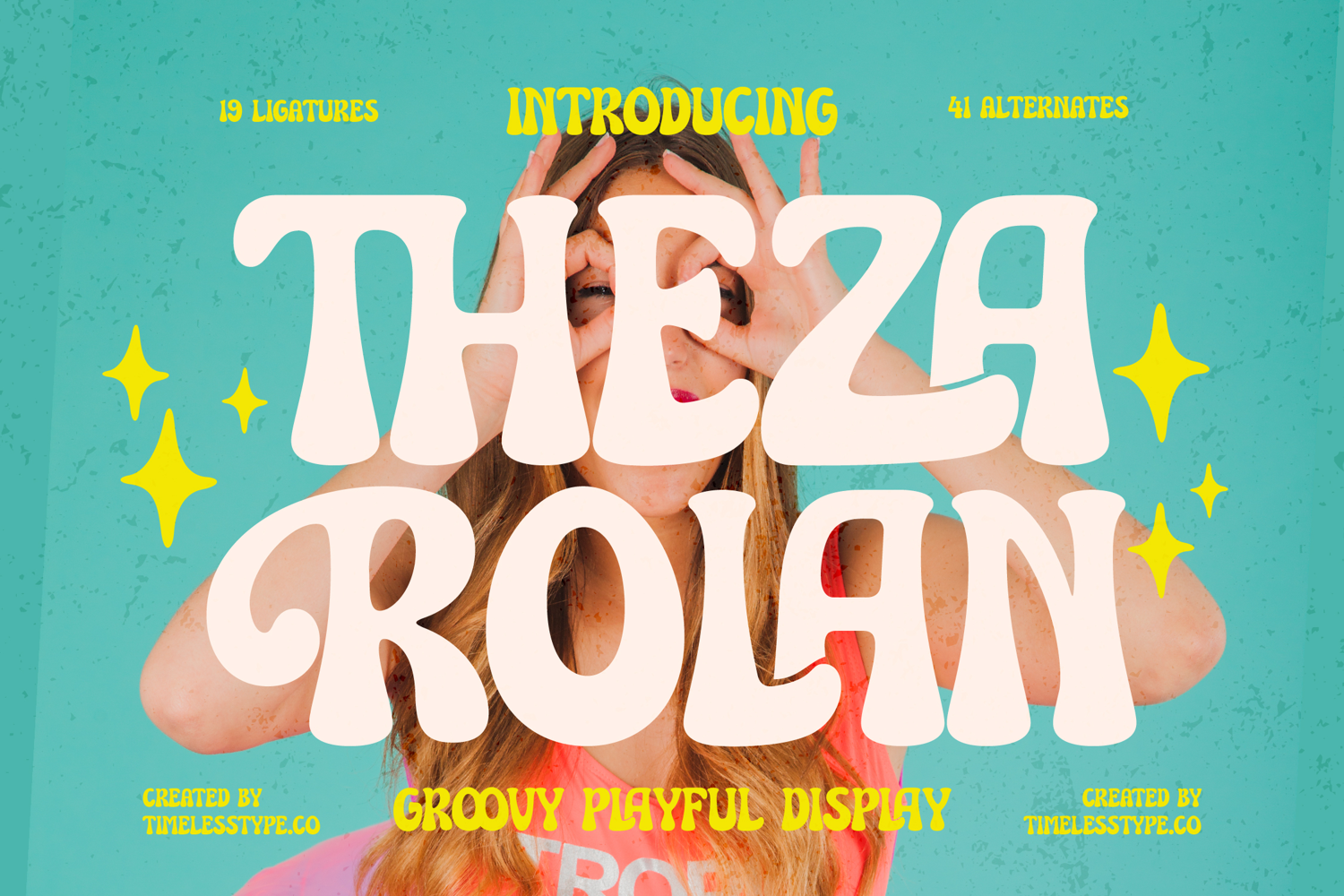
Theza Rolan - Groovy Playful Display
Theza Rolan
Theza Rolan Italic
Theza Rolan - Groovy Playful Display
Step into a world of vibrant nostalgia with Font Theza Rolan - Groovy Playful Display Groovy. This bold display font captures the irresistible charm and free-spirited essence of the groovy era, reimagined for contemporary design. Its distinctive rounded forms and charming retro aesthetic instantly command attention, making it the perfect choice for projects seeking a fun, yet sophisticated, visual identity.
Unleash unparalleled creative freedom with Font Theza Rolan - Groovy Playful Display Groovy. Boasting a rich character set that includes 19 ligatures and 41 alternates, this font offers exceptional versatility and design flexibility for truly unique typographic expressions. With its extensive multilingual support, Font Theza Rolan - Groovy Playful Display Groovy adapts seamlessly across global markets, making it incredibly versatile for international projects.
Transform your projects with undeniable personality using Font Theza Rolan - Groovy Playful Display Groovy. It’s ideally suited for impactful branding, vibrant packaging design, catchy editorial headlines, energetic social media graphics, engaging merchandise, and lively event posters. This font is perfect for any application requiring a playful, engaging, and memorable visual statement that leaves a lasting impression through impactful messaging.
Elevate your design with a touch of timeless cool. Font Theza Rolan - Groovy Playful Display Groovy isn't just a typeface; it's a statement, designed to infuse your work with a joyous and inviting vibe. It promises to deliver visual delight and ensure your brand stands out with authentic retro appeal. A must-have for designers seeking expressive typography that resonates across diverse audiences.